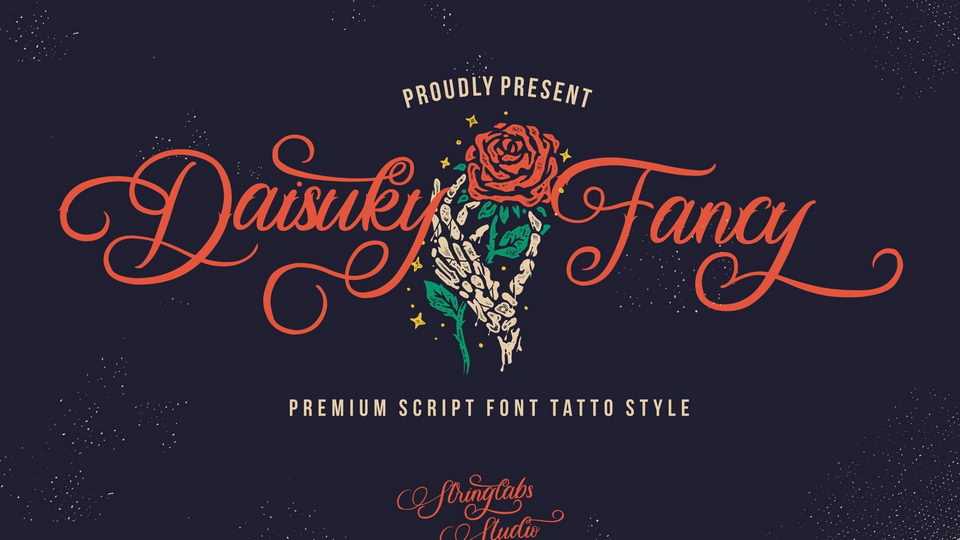
Download Daisuky Fancy font, a delicate, elegant and flowing handwritten typeface. Daisuky Fancy has beautiful and well balanced characters and as a result, it matches a wide pool of designs.